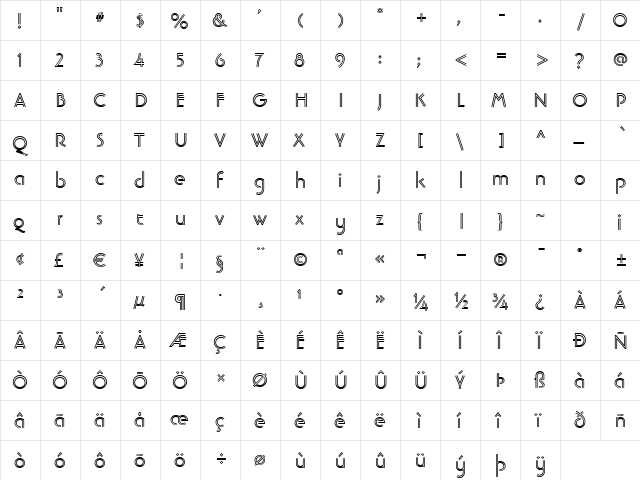
Banjoman Open Bold
Design Context for Banjoman Open Typeface
Banjoman Open takes a measured approach to typography — its balanced proportions and neutral character make it a reliable workhorse for both digital and print work. The heavy weight commands attention and anchors typographic hierarchies.